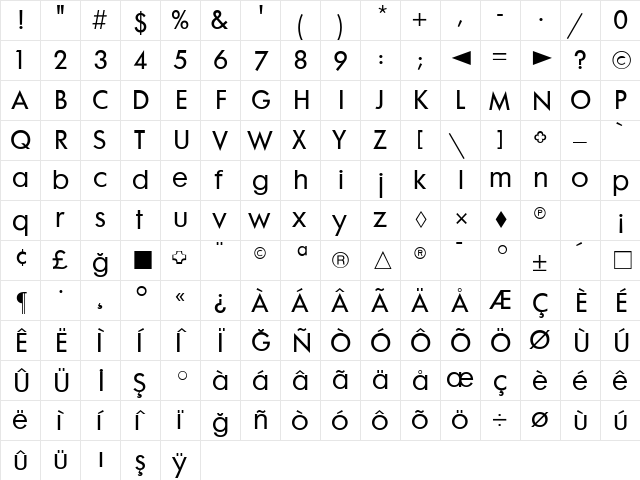
FuturaMaxiBook Regular
Design Context for FuturaMaxiBook Typeface
FuturaMaxiBook channels digital-age aesthetics through its sharp, structured letterforms — ideal for brands that want to signal innovation.
Pro Tip: Try FuturaMaxiBook with generous letter-spacing in UI labels and navigation — the geometric forms benefit from room to breathe.